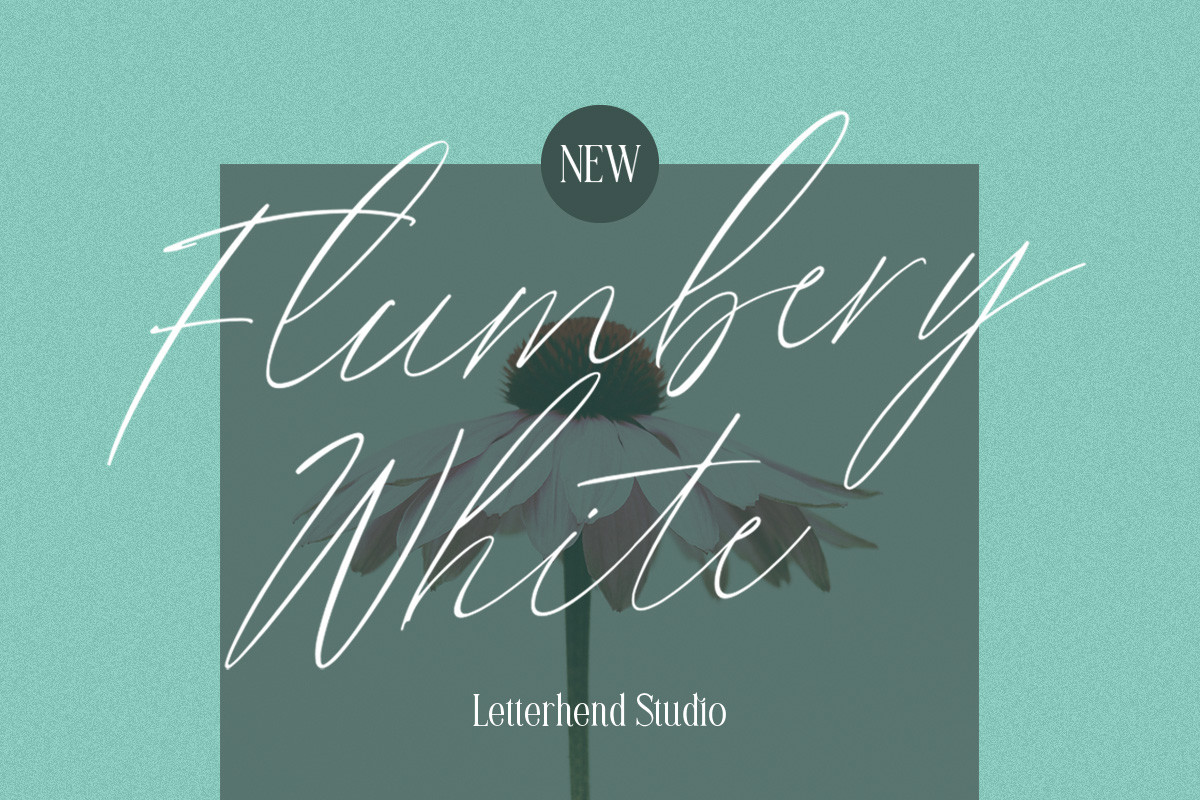
Flumbery White Font
Perfect for wedding invitations, greeting cards, branding, packaging, and elegant editorial design.
The Flumbery White Font excites designers with its delicate, handwritten style that brings a soft, charming, and personal touch to any creative project.
The Flumbery White Font Free Download is a beautifully crafted script typeface designed to mimic natural handwriting with graceful curves and smooth flow. It’s perfect for lifestyle blogs, boutique branding, and personal stationery.
One of the key strengths of Flumbery White Font is its balance between decorative appeal and readability, making it suitable for both display and short text applications.
In branding, Flumbery White conveys warmth, creativity, and intimacy. It pairs wonderfully with pastel color palettes, floral illustrations, and minimalist layouts, making it ideal for wedding planners, beauty products, and artisanal brands.
For digital projects, this font enhances social media posts, blog headers, and digital invitations, giving your content a heartfelt and elegant aesthetic.